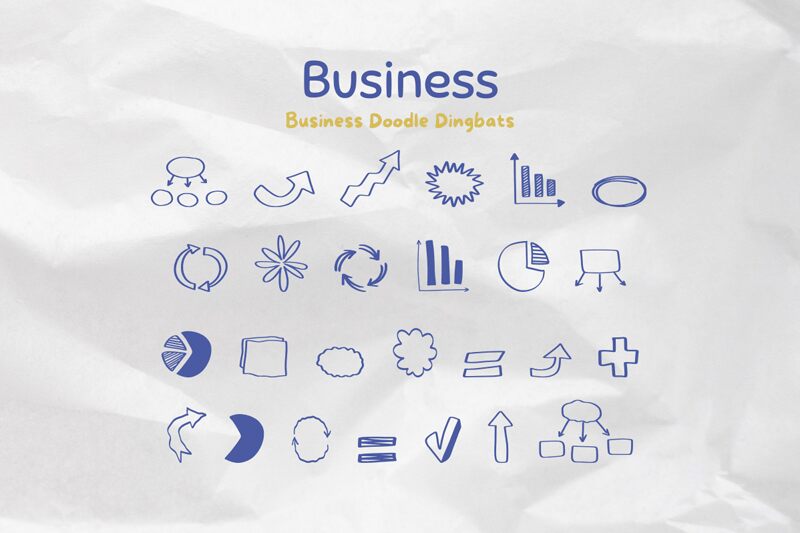
Businessa
Businessa dingbat font, by talented designer Tri Sakti Oktaviano. A playful modern display typeface that features medium contrast and bold elements. Businessa is perfect for all your fun designs but also in more compact settings. Such distinctively shapes works particularly well in informal style theater posters, visually engaging playful museum displays materials, quirky adventure containers like stickers or cards for foods fairs, vibrant various civic pre-election campaign branding from unconventional local candidates.
This dynamic versatile typeface makes a powerful eye-catching impact in bold statements found on diverse tourism coordinated design assets by cross-disciplinary teams: logo sessions presentations, festival print collateral & national holiday schedule festive flyers or even worldwide street installations!